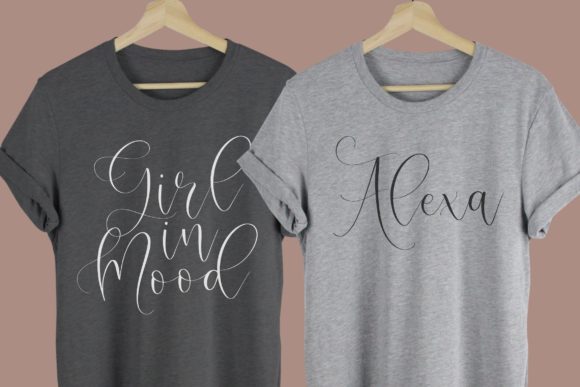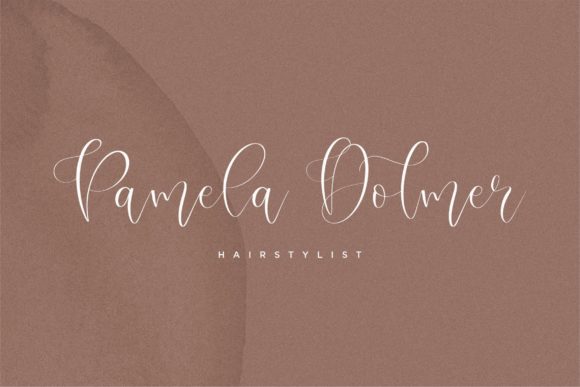
Oakmint Font
db-ku.com - Script & Handwritten -- Oakmint is a lovely and delicate script font that exudes elegance and class. This font was particularly crafted for those who need a beautiful and refreshing look to their designs.